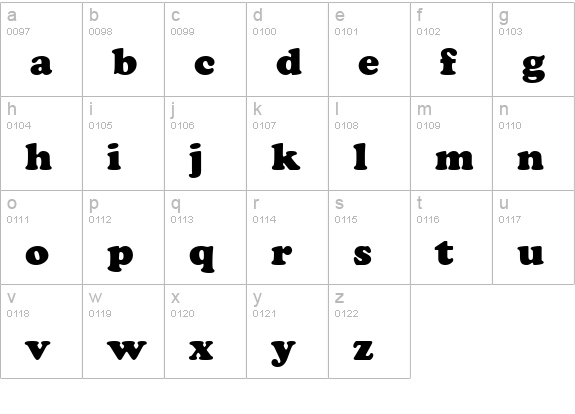
Cooper Black is a maximum-weight, dramatic variant in the Cooper typeface family \xE2\x80\x94 well suited to maximum-impact headlines, posters, and packaging.
Cooper Black is a timeless and iconic typeface that exudes warmth, friendliness, and a touch of nostalgia. Its bold and rounded letterforms make it perfect for headlines, posters, and branding projects that require a strong and impactful presence. Whether you're aiming for a retro vibe or a modern twist on a classic style, Cooper Black delivers with its distinct personality and legibility. What's even better is that Cooper Black is available for free download at FontsMarket.com. This means you can easily add this versatile font to your design arsenal without any cost. Embrace the charm and versatility of Cooper Black in your next project and watch it bring your ideas to life with its bold and inviting presence.